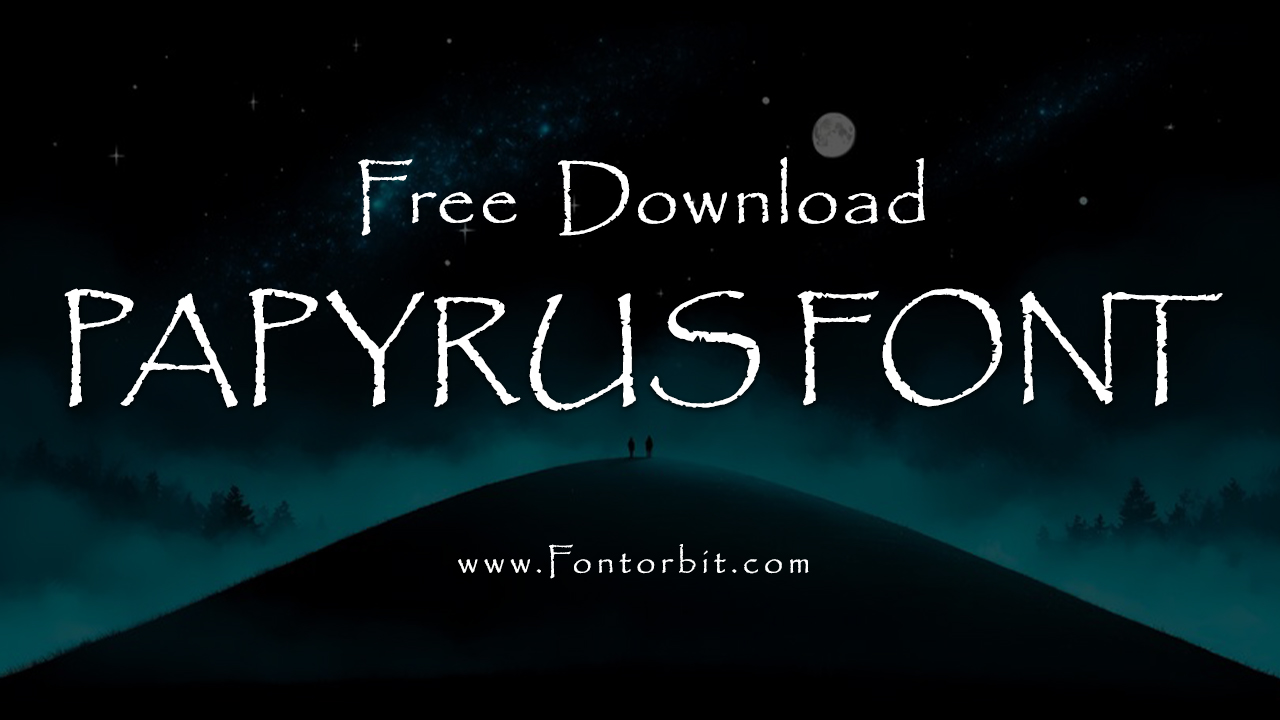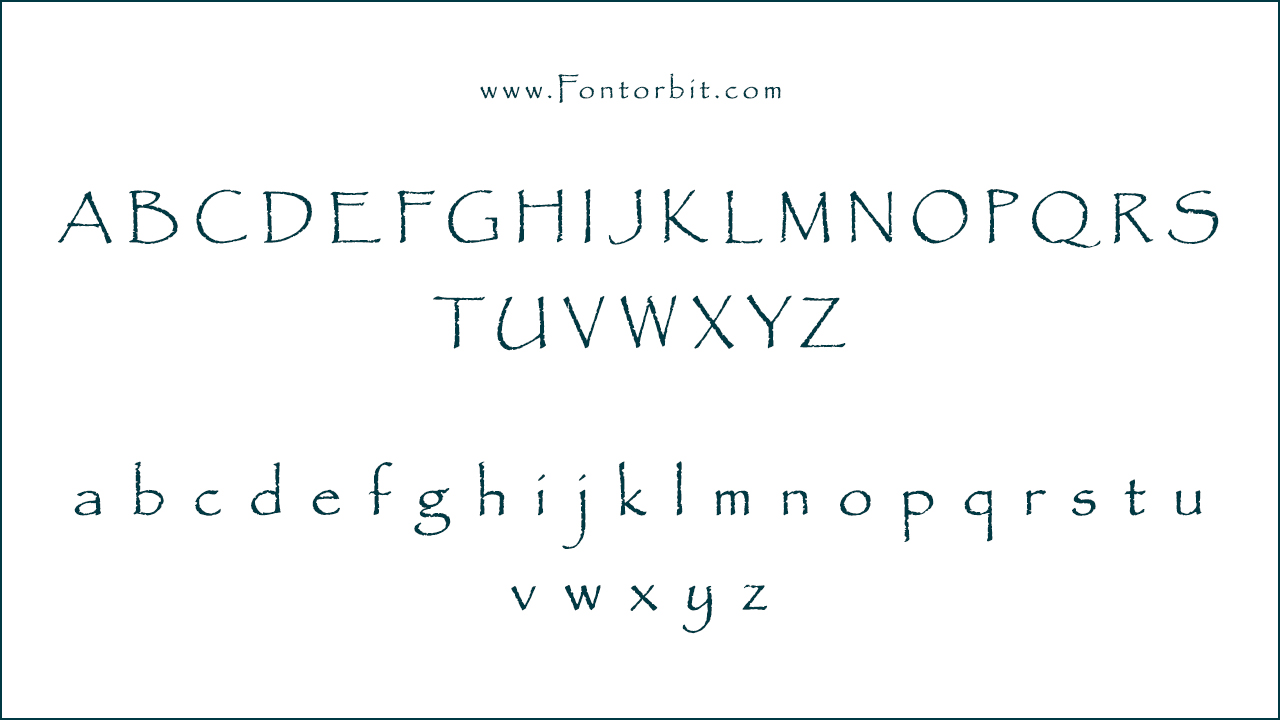
Papyrus Font is a distinctive typeface designed by Chris Costello in 1982 and released by Linotype in 1983. Known for its rough edges and irregular curves, it captures a handcrafted, ancient script aesthetic. Papyrus is available for free for both personal and commercial use.
The Papyrus Font Family Includes
Papyrus features a unique design with irregular, hand-drawn characteristics that evoke an ancient, rustic feel. The font family is primarily known for its single style but has seen various adaptations and uses over the years.
- Papyrus Font
Papyrus Font’s distinctive style suits projects that seek to convey a historical or exotic look. Its applications are widespread, though it has garnered criticism for overuse in various contexts. Consider pairing it with simpler fonts for readability. Its unique style adds character but should be used selectively to avoid overuse and maintain its impact.
- Brochures
- Film Titles
- Subtitles
- Greeting Cards
- Ancient-themed Products
- Event Graphics
- Video Games
Papyrus Font Found In Use
We have seen Papyrus font frequently in design contexts aiming to evoke an ancient or mystical atmosphere. Its use in movies, video games, and various promotional materials reflects its distinctive yet controversial aesthetic.
Papyrus Font’s distinctive, handcrafted style is ideal for projects that convey a historical or exotic feel. Its applications include film titles and subtitles (e.g., “Avatar”), greeting cards, branding for exotic products, thematic posters, and video games (e.g., Undertale). However, it has faced criticism for overuse in various contexts.
Papyrus Font stands out with its handcrafted, ancient script appearance, though it has faced criticism for overuse. Its distinctive style makes it suitable for thematic projects where a unique, rustic look is desired. For a modern contrast, pair Papyrus with clean, contemporary fonts.
1.Is Papyrus Font Suitable For All Types Of Design Projects?
Papyrus is best suited for projects requiring an ancient or rustic aesthetic. Due to its distinctive and controversial style, it may not be ideal for modern, professional, or minimalist designs.
2.What Makes A Typeface Similar To Papyrus Appropriate For Logo Design?
Typefaces similar to Papyrus are suitable for logos due to their distinctive, exotic appearance and textured look, which can evoke a historical or thematic feel.
3.What Are The Most Common Pairings For Papyrus Font In Design?
Designers often pair Papyrus with serif or sans-serif fonts like Times New Roman or Helvetica to enhance readability and create aesthetic balance.
4.What Are The Most Appropriate Uses Of Papyrus Font You Have Seen?
Papyrus works well in thematic designs such as movie titles (“Avatar”), greeting cards, branding for exotic products, and event posters where designers want to add a historical or unique touch.
5.What Are Some Script Fonts That Resemble The Handwritten Style Of Papyrus?
Script fonts similar to Papyrus include Brush Script, Zapfino, and Mistral. These fonts offer a handwritten or artistic quality suitable for conveying a personal or decorative style.